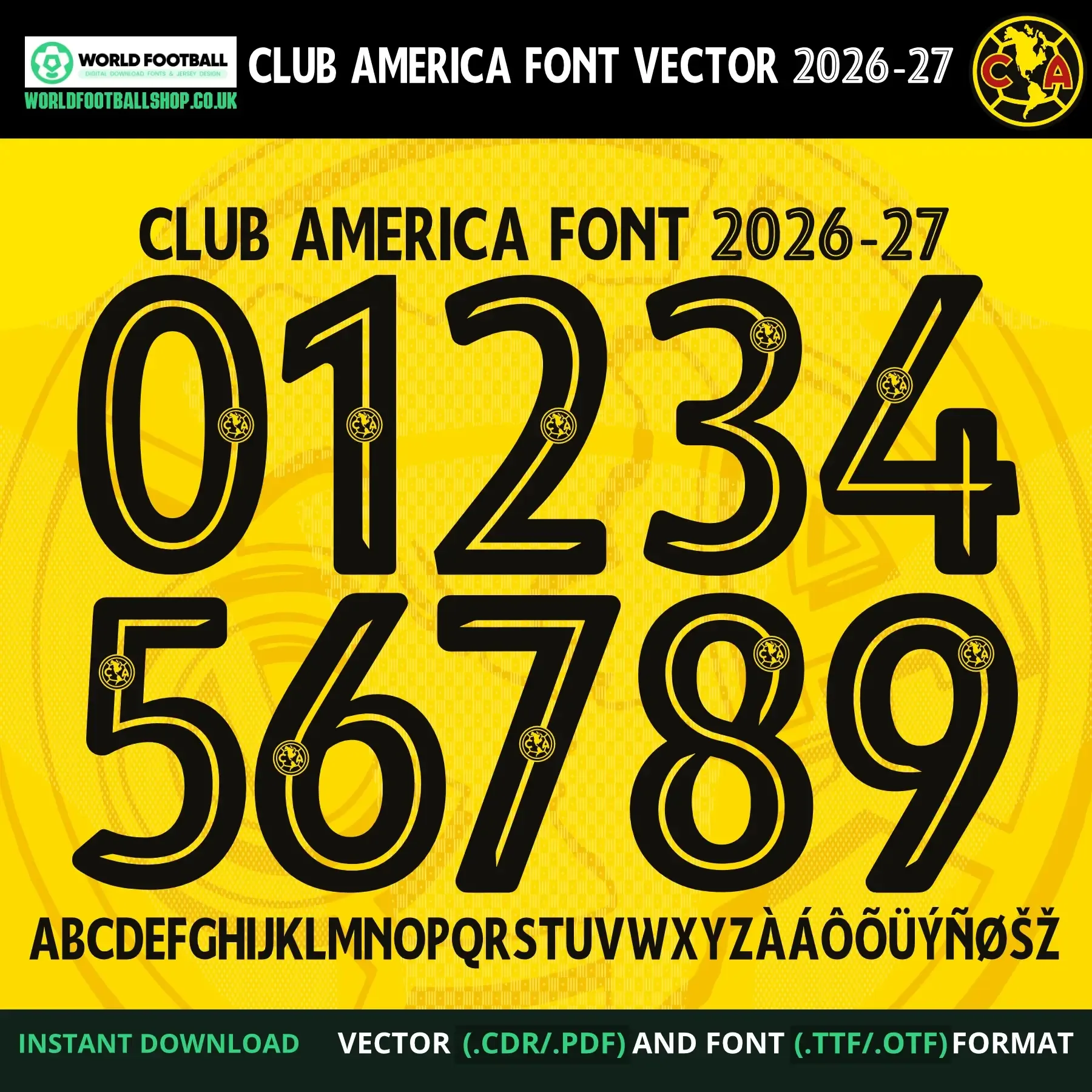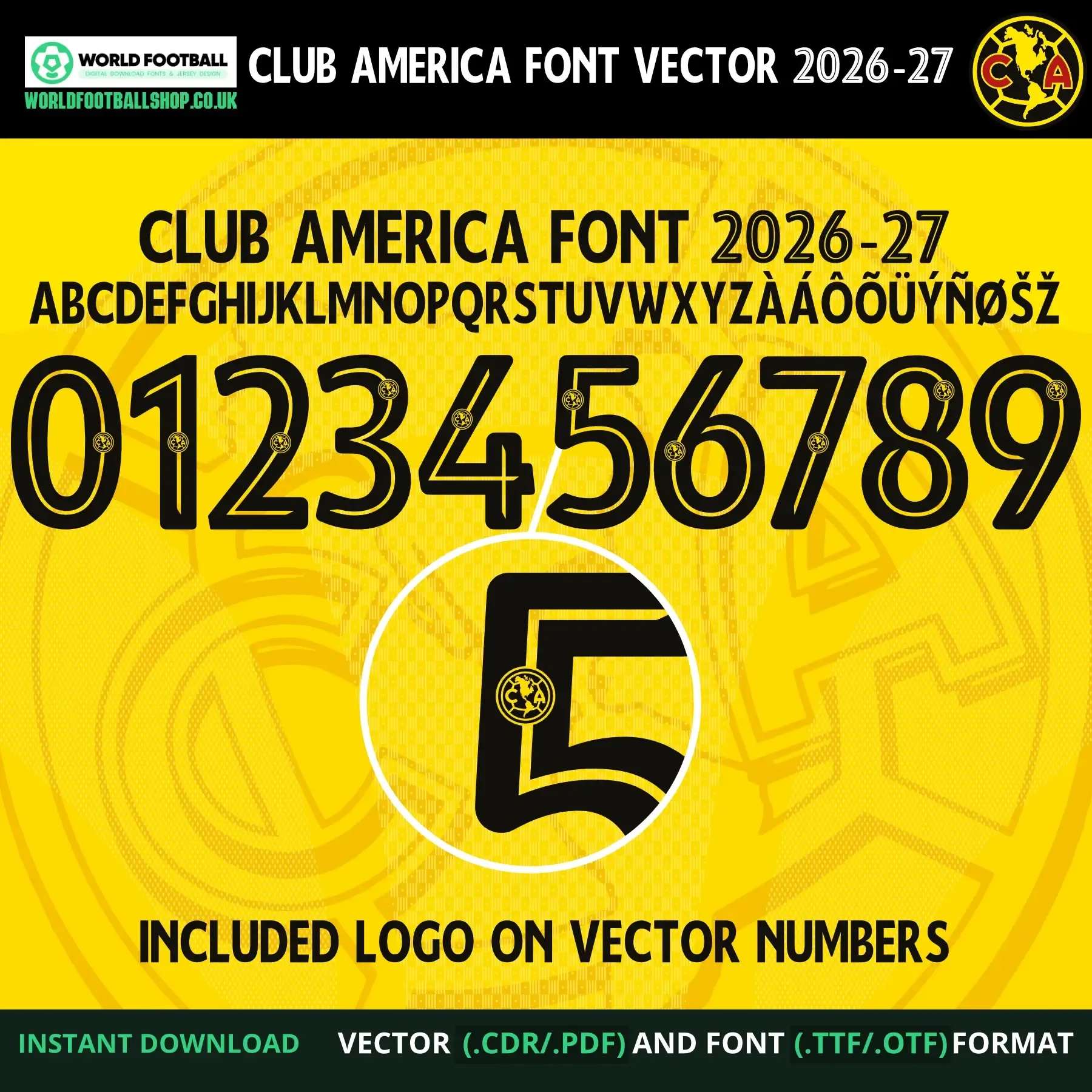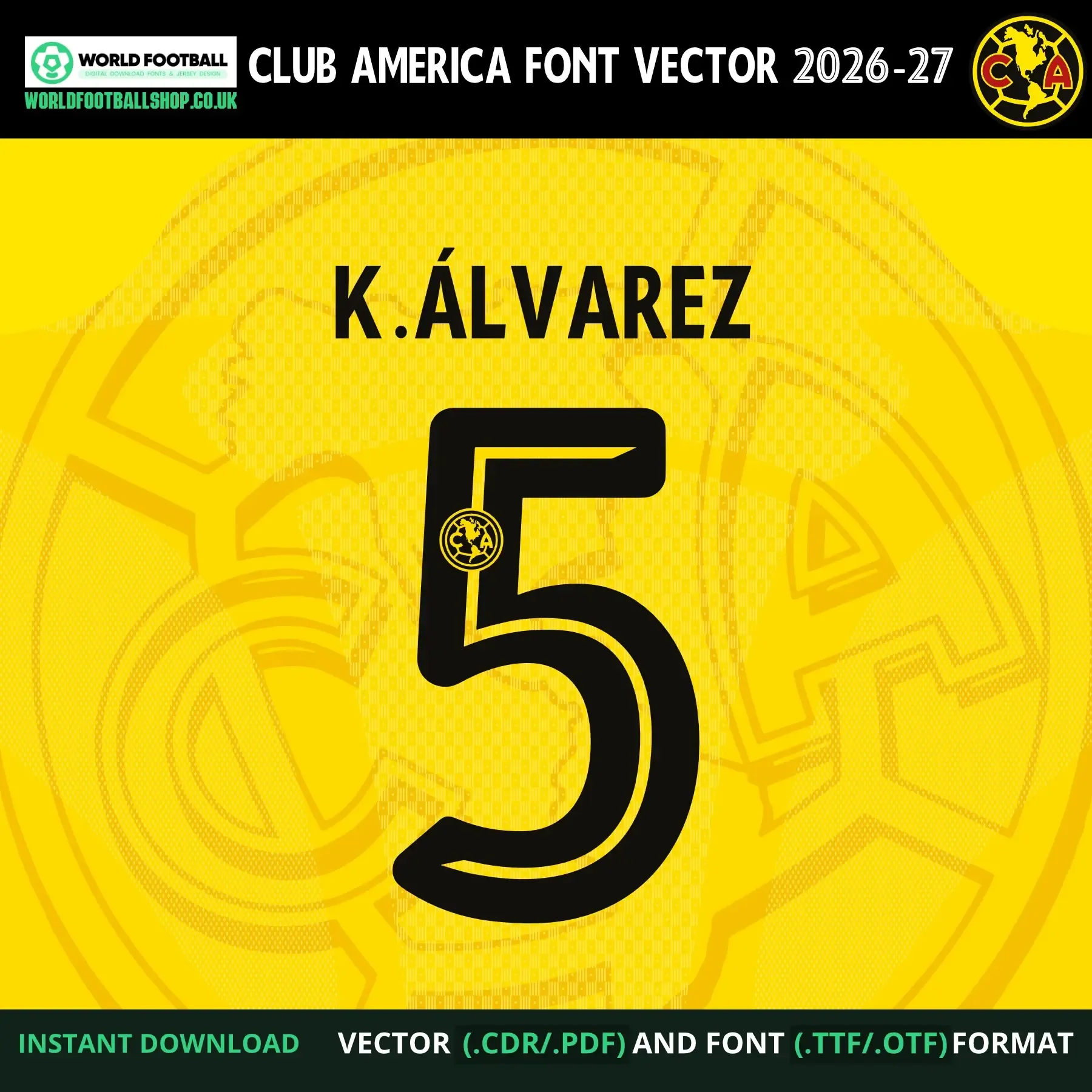
Club América Font Liga MX 2026-27, inspired by the style of Club América's kit lettering for Liga MX. Includes TTF and OTF font files plus CDR and PDF, AI, EPS, SVG vector files, with a full A-Z alphabet, numbers 0-9, and accented characters (À, Á, Ô, Õ, Ü, Ý, Ñ, Ø, Š, Ž). Instant digital download - no physical product is shipped.
Club América Font Liga MX 2026-27 - Jersey Typography
This football font set takes inspiration from the bold, rounded lettering associated with Club América's kit identity for the 2026-27 Liga MX season. Each character is built in solid black with a clean, slightly rounded block form, set against the club's classic yellow/gold background with a subtle circular pattern texture - an instantly recognisable colour combination for Águilas fans.
The full character set A-Z alphabet and numbers 0-9, with the Club América crest embedded at the base of every letter and number — is supplied as both desktop font files (TTF/OTF) and vector files (CDR/PDF), so it works whether you're setting text quickly in a design app or need clean, editable outlines for cutting and printing. The preview layout shows the full character set alongside a sample name and number combination "K.ÁLVAREZ 5" to demonstrate how the font looks applied.
- Bold black-on-gold styling delivers strong contrast and instant club recognition
- Crest detail embedded on every character for a cohesive, kit-inspired look
This font is suited to custom shirt mockups, print-shop nameset Like K.ALVAREZ 5 templates, social graphics, posters, and general football-themed design work. The vector outlines stay clean at both large sizes (banners, posters) and small sizes (sleeve numbers, mini-kit graphics), and are compatible with Adobe Illustrator, Photoshop, CorelDRAW, Affinity Designer/Publisher, Figma, and any software that accepts TTF/OTF fonts or CDR/PDF vector imports. The files also suit vinyl-cutting and sublimation printing workflows.